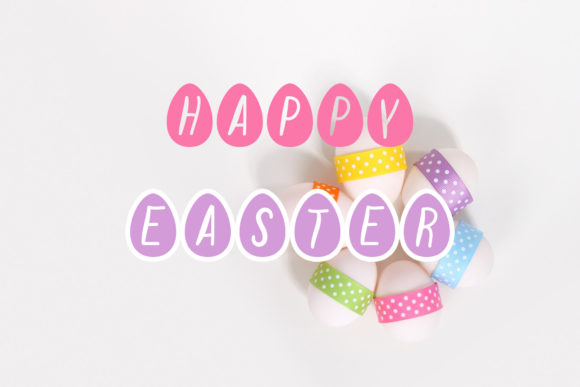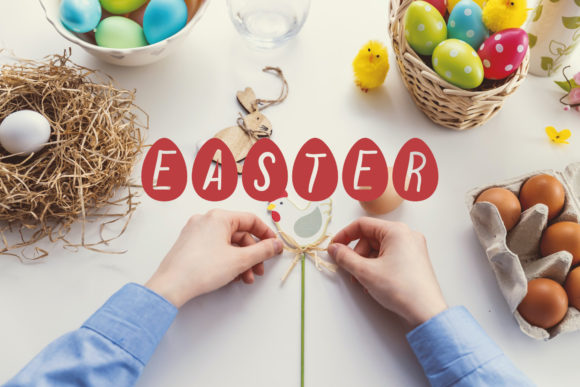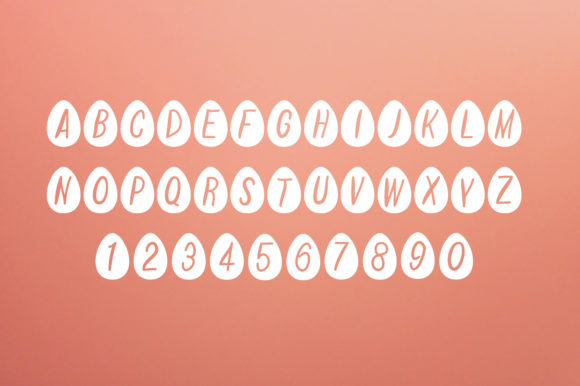
The Easter Eggs Font: A Cute and Authentic Decorative Delight
I’ll never forget the time I was working on an Easter-themed project for a client, and I just couldn’t find the right font to bring it all together. I wanted something that was both cute and authentic, something that would make my design pop. That’s when I stumbled upon the Easter Eggs font, and let me tell you, it was love at first sight! 💕
This adorable decorative font is perfect for any Easter-related design project, from cards and invitations to social media graphics and more. In this article, I’ll share my honest review of the Easter Eggs font, provide a step-by-step guide on how to use it on various platforms, and explore similar fonts you might enjoy.
The Good: ✨
- ✅ Cute and authentic Easter-themed design
- ✅ Supports multiple languages
- ✅ Easy to use and navigate
The Not-So-Good: 🤔
- ⚠️ Limited character set compared to other fonts
- ⚠️ Not suitable for body text or long-form content
While the Easter Eggs font is perfect for decorative purposes, it’s essential to note its limitations. The character set is relatively small, which might not be ideal for extensive text. Additionally, it’s not designed for body text, so it’s best used for headlines, titles, or short phrases.
The Designer Inspiration Behind Easter Eggs Font
The Easter Eggs font was designed with one goal in mind: to create a cute and authentic Easter-themed font that would bring joy to designers and their clients. The designer, inspired by traditional Easter decorations and springtime motifs, crafted a font that’s both playful and elegant.
| Author | Vladimir Carrer |
Q: What is the Easter Eggs font best used for?
A: The Easter Eggs font is best used for decorative purposes, such as Easter-themed cards, invitations, social media graphics, and other holiday designs.
Q: Is the Easter Eggs font suitable for body text?
A: No, the Easter Eggs font is not designed for body text and is best used for headlines, titles, or short phrases.